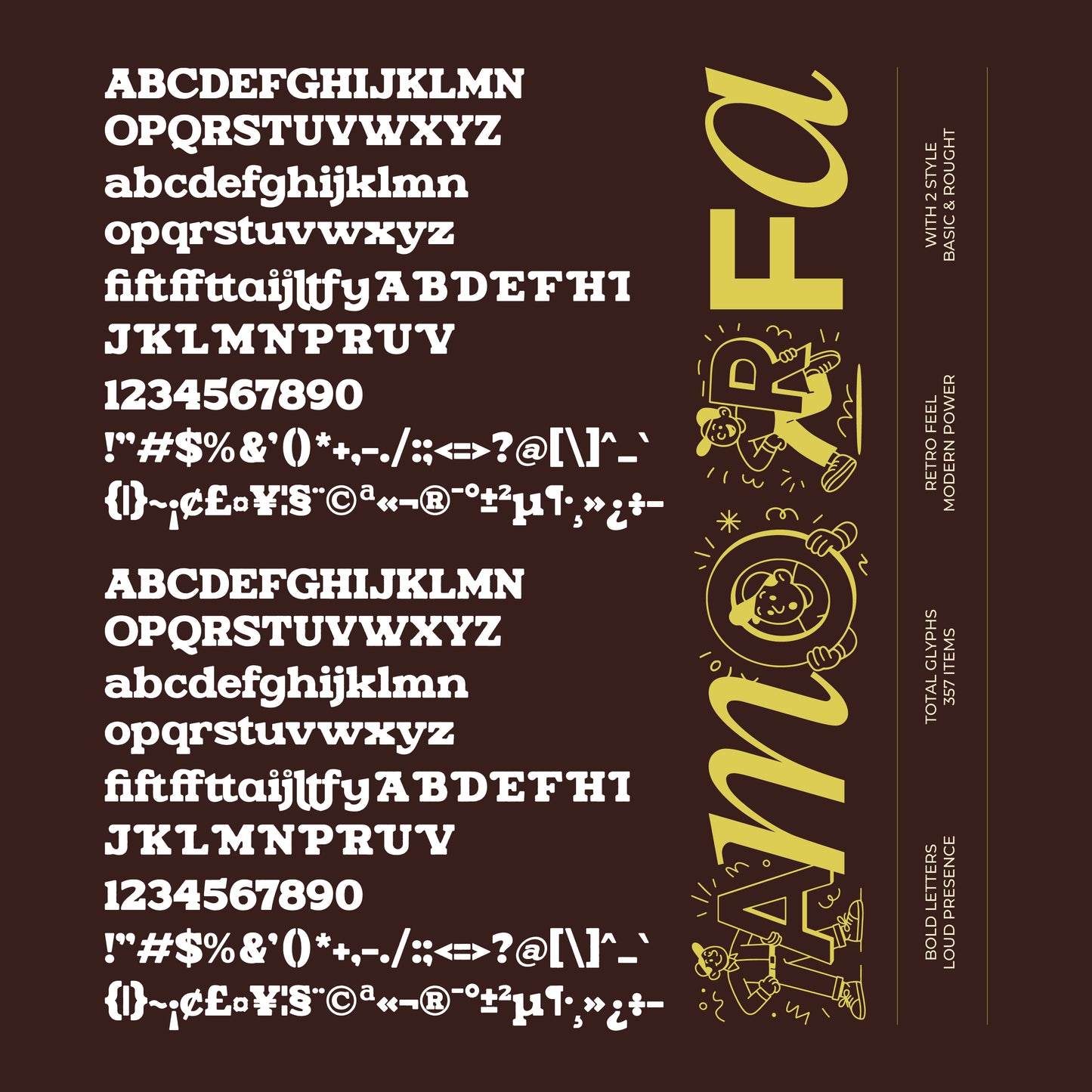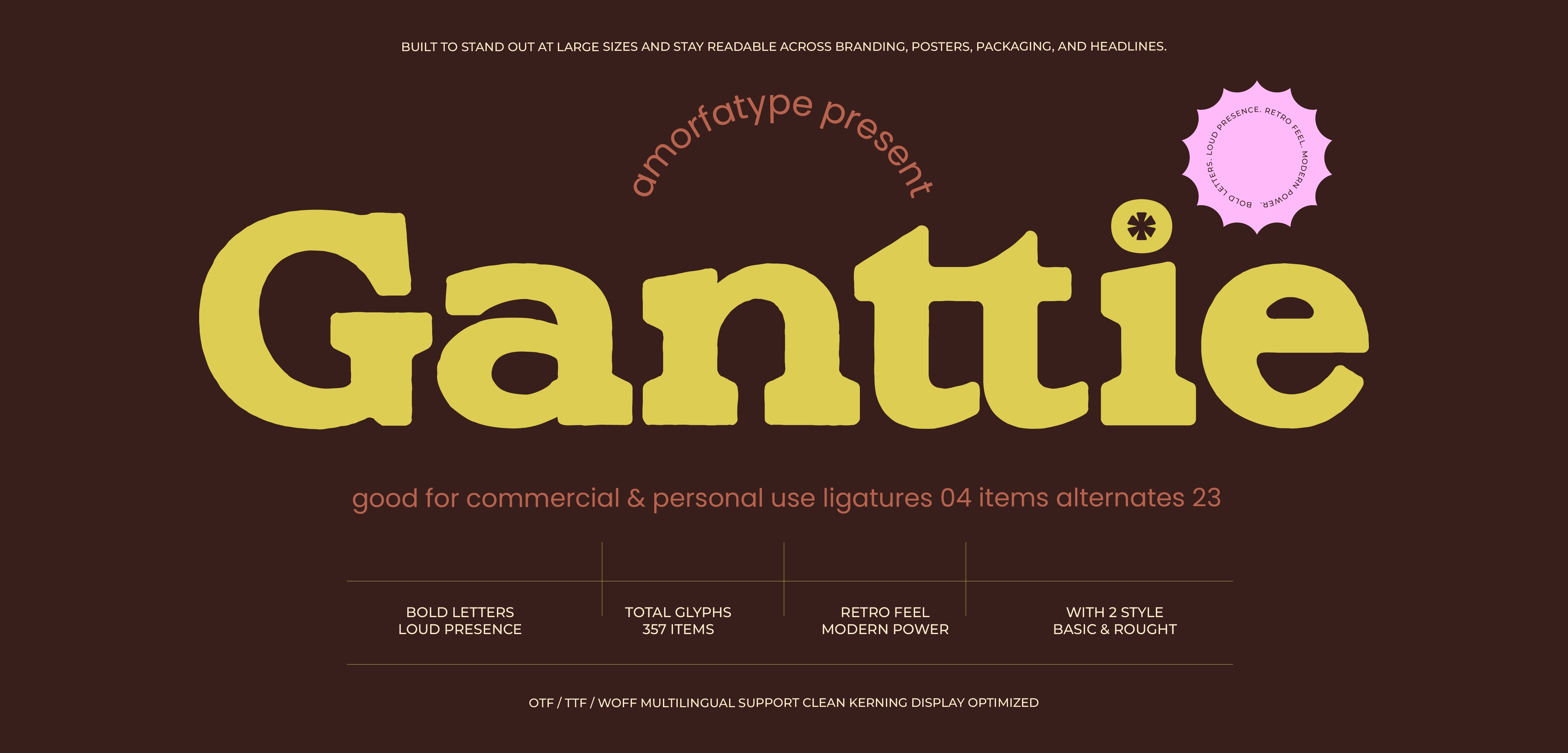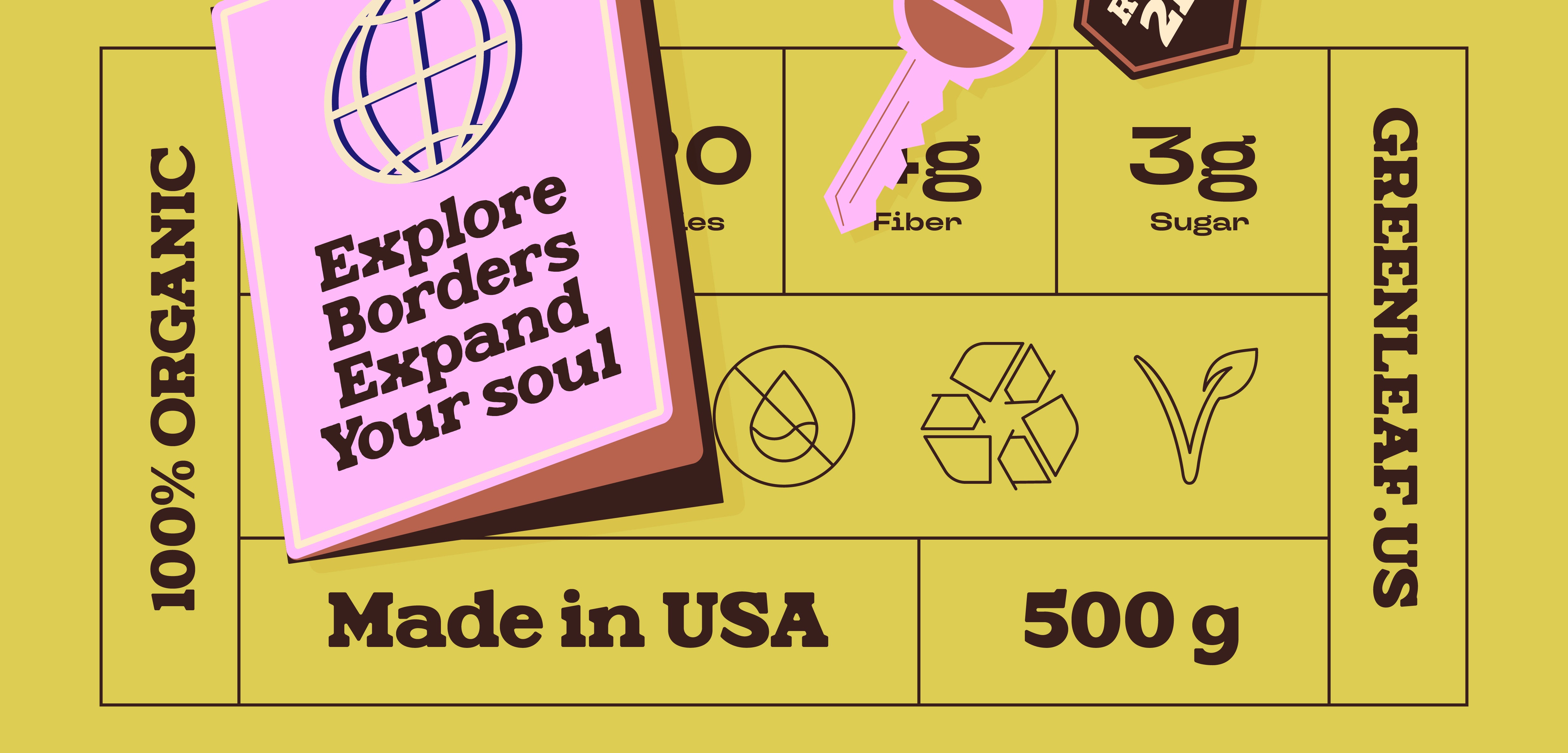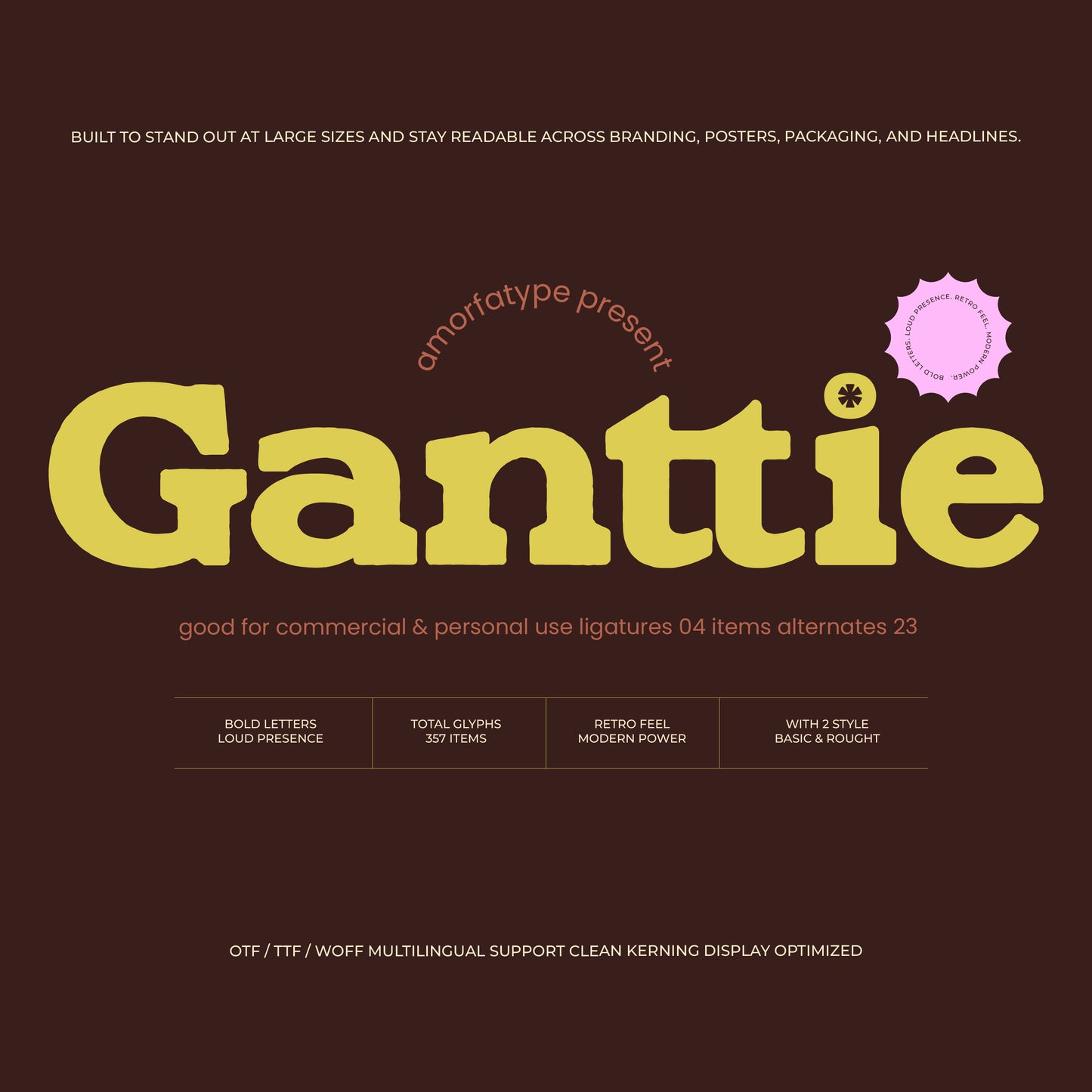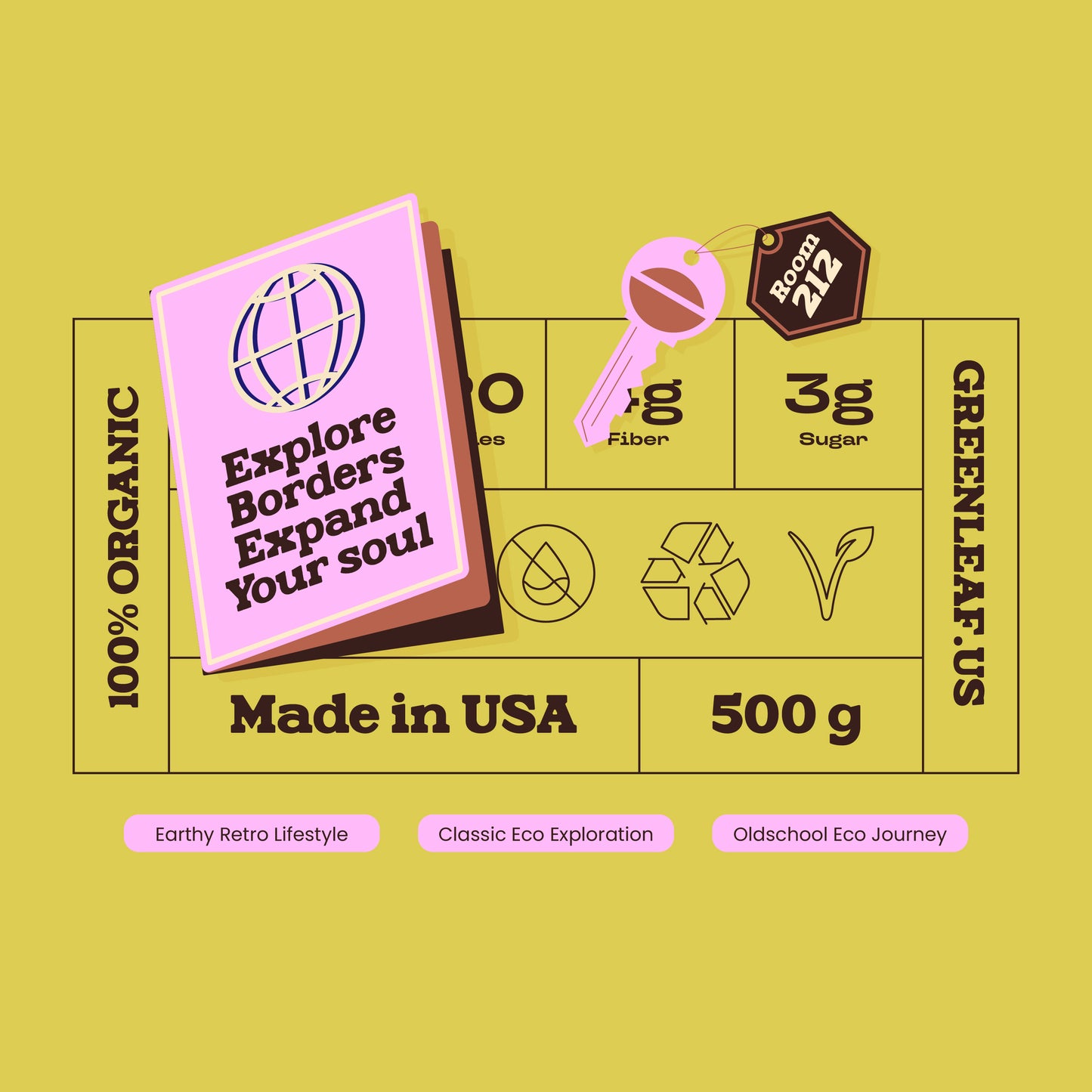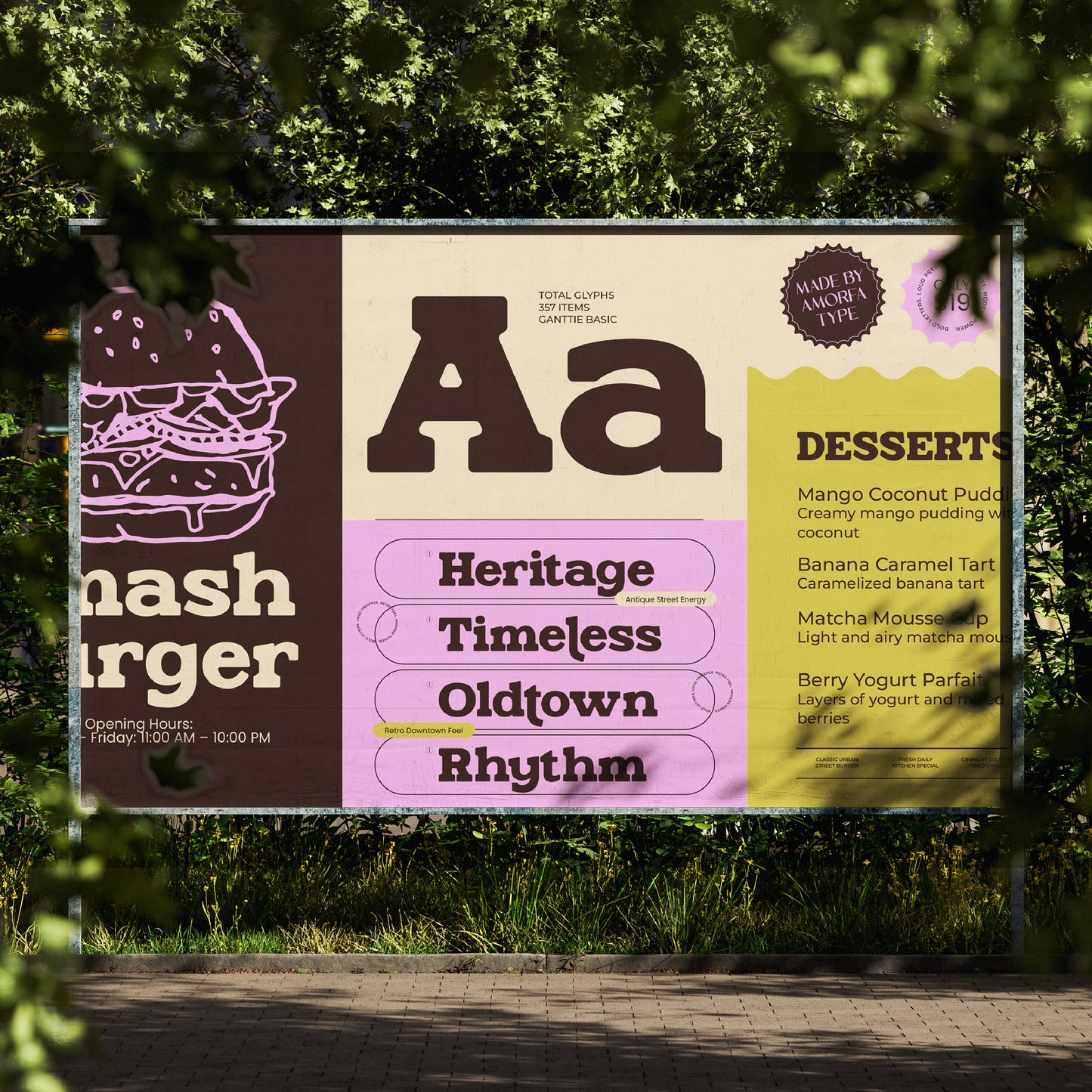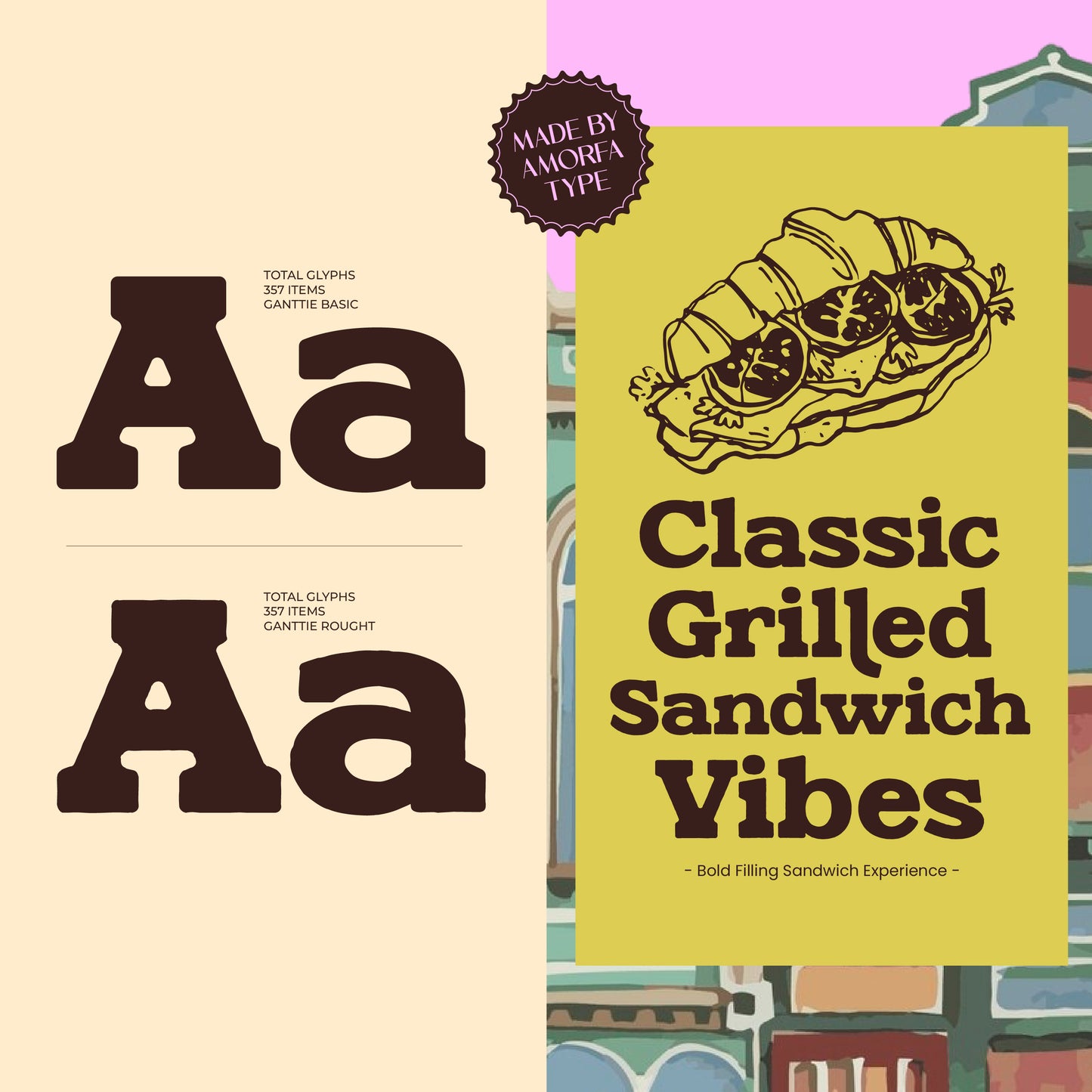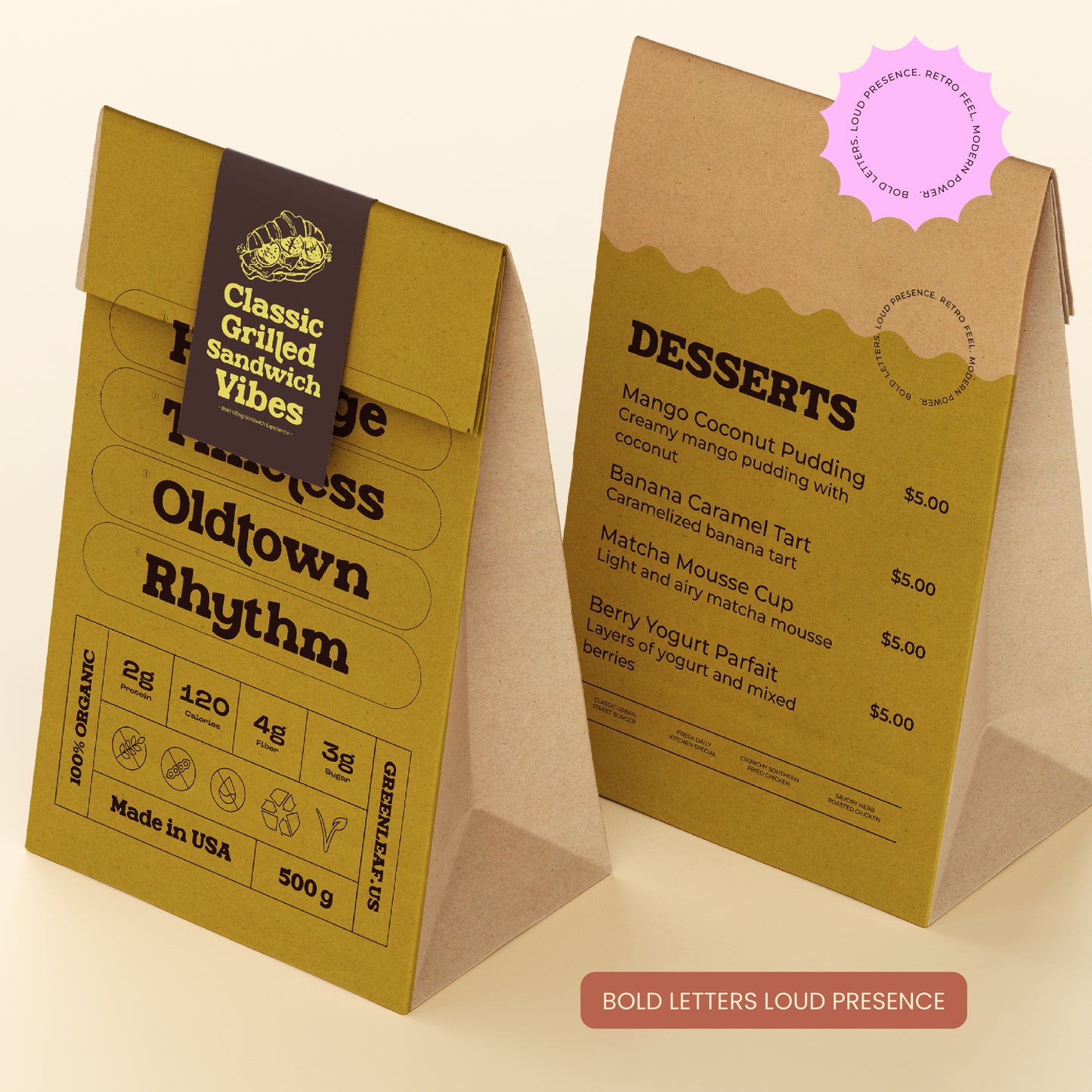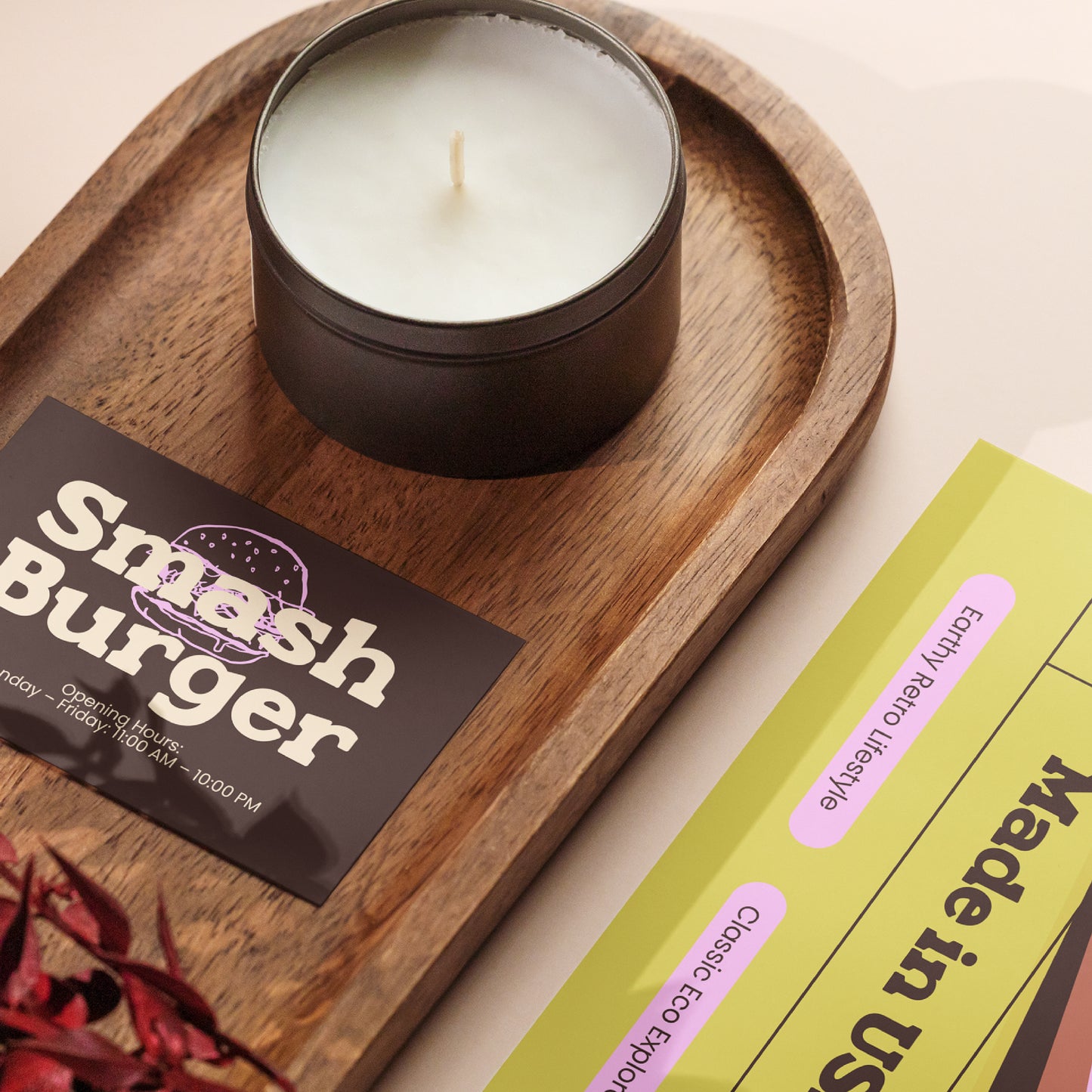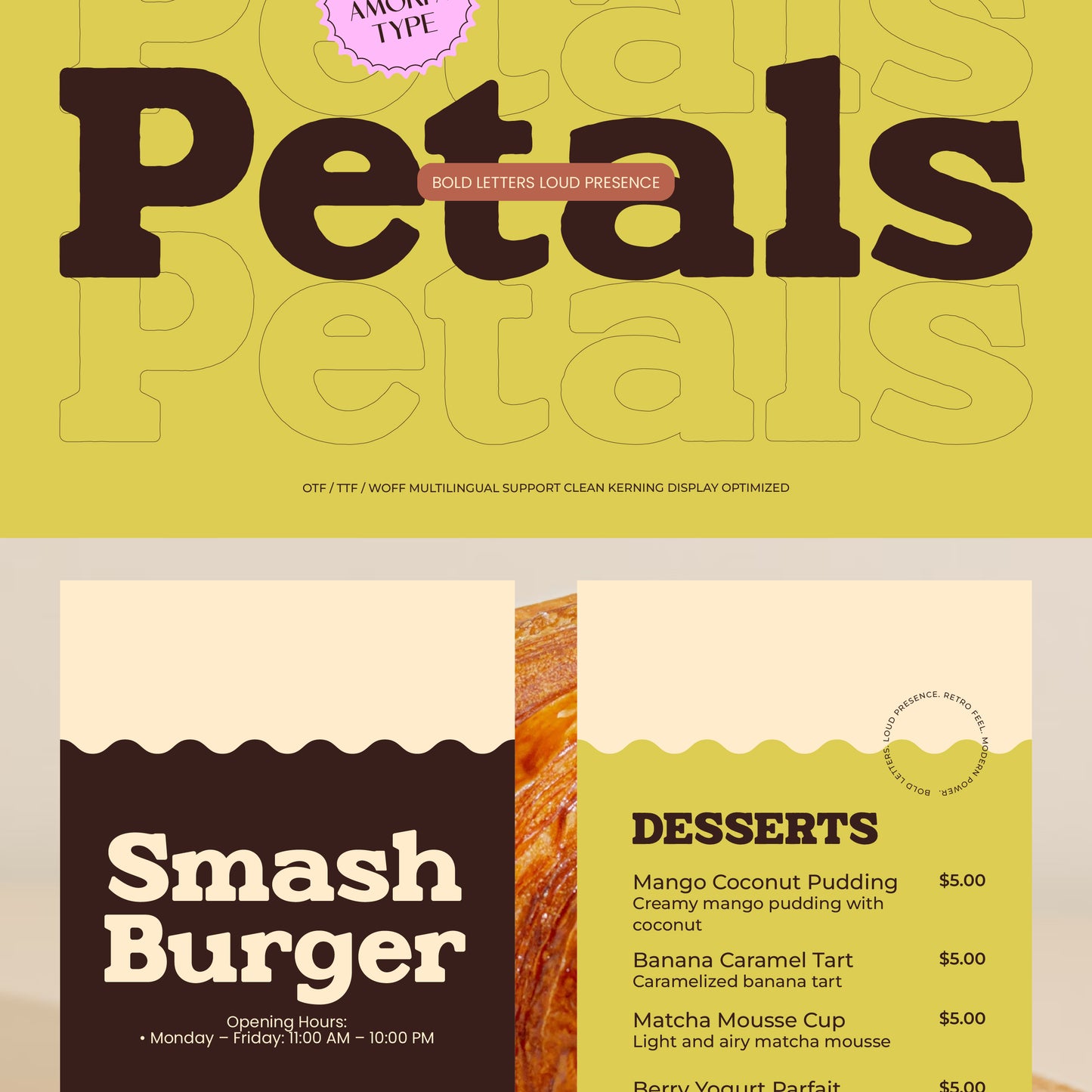
Ganttie
Ganttie is a display slab serif font that combines timeless elegance with a strong and distinctive visual presence. Crafted with refined serif details and bold letterforms, Ganttie is designed to create impactful typography that stands out across a wide range of creative applications.
— TOTAL GLYPHS:357
— MULTILINGUAL SUPPORT
— NUMBERS & PUNCTUATION
— LIGATURES & STYLISTIC ALTERNATES